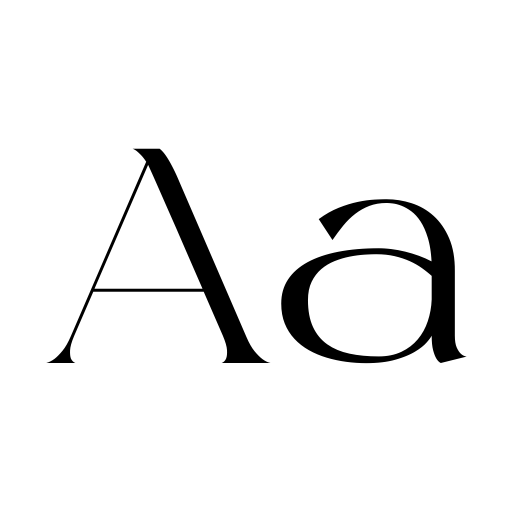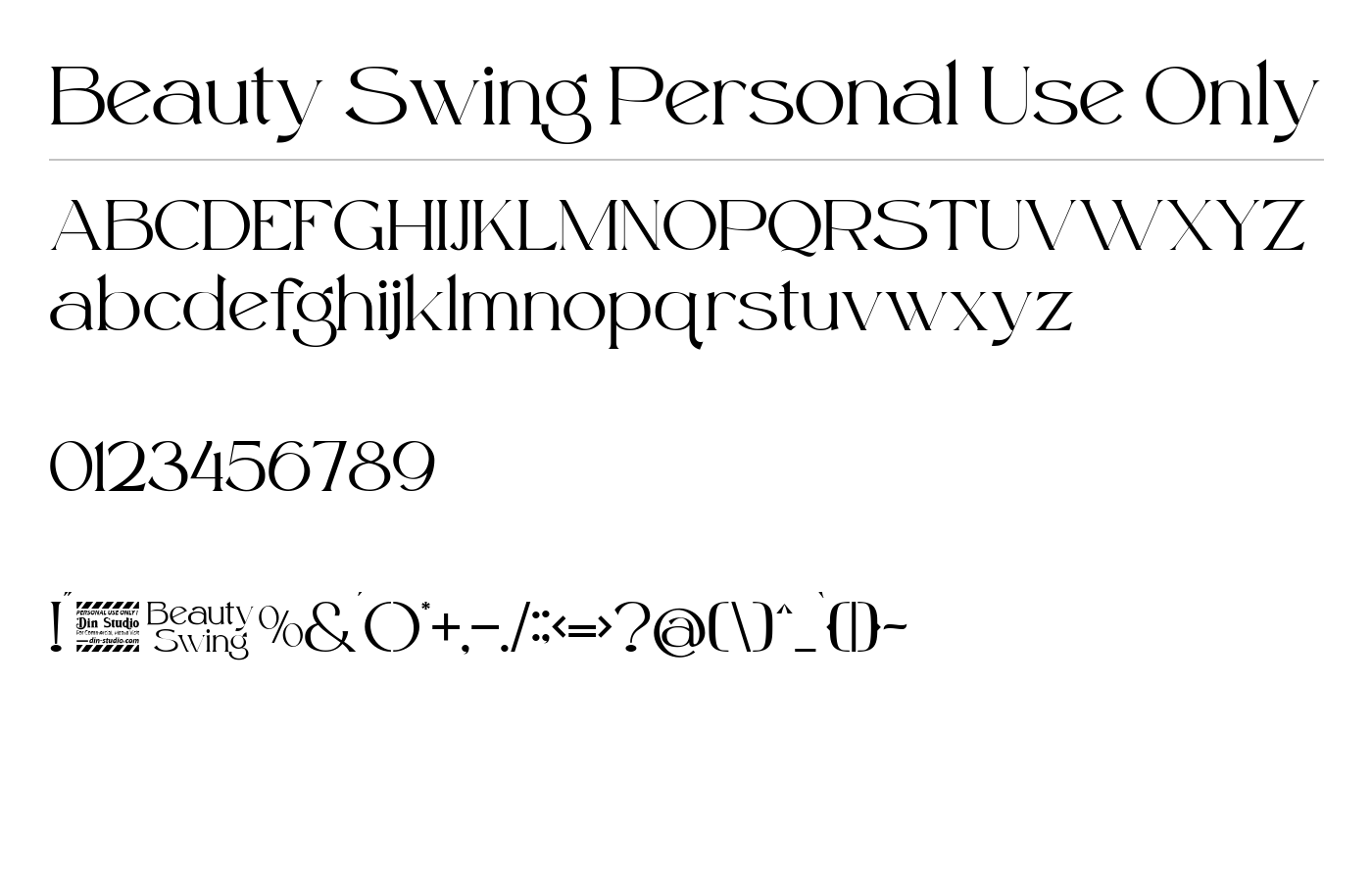
Beauty Swing Personal Use Only is a sophisticated serif font with a modern twist, featuring high contrast between thick and thin strokes and unique, elegant letterforms that evoke a sense of luxury and refinement. Its slender, tall characters with delicate, pointed serifs make it perfect for upscale branding, fashion editorials, and stylish headlines where a graceful yet distinctive look is desired. This font works beautifully in contexts that call for a refined and artistic touch, adding personality without sacrificing readability.
Beauty Swing Personal Use Only Font
About Beauty Swing Personal Use Only Font